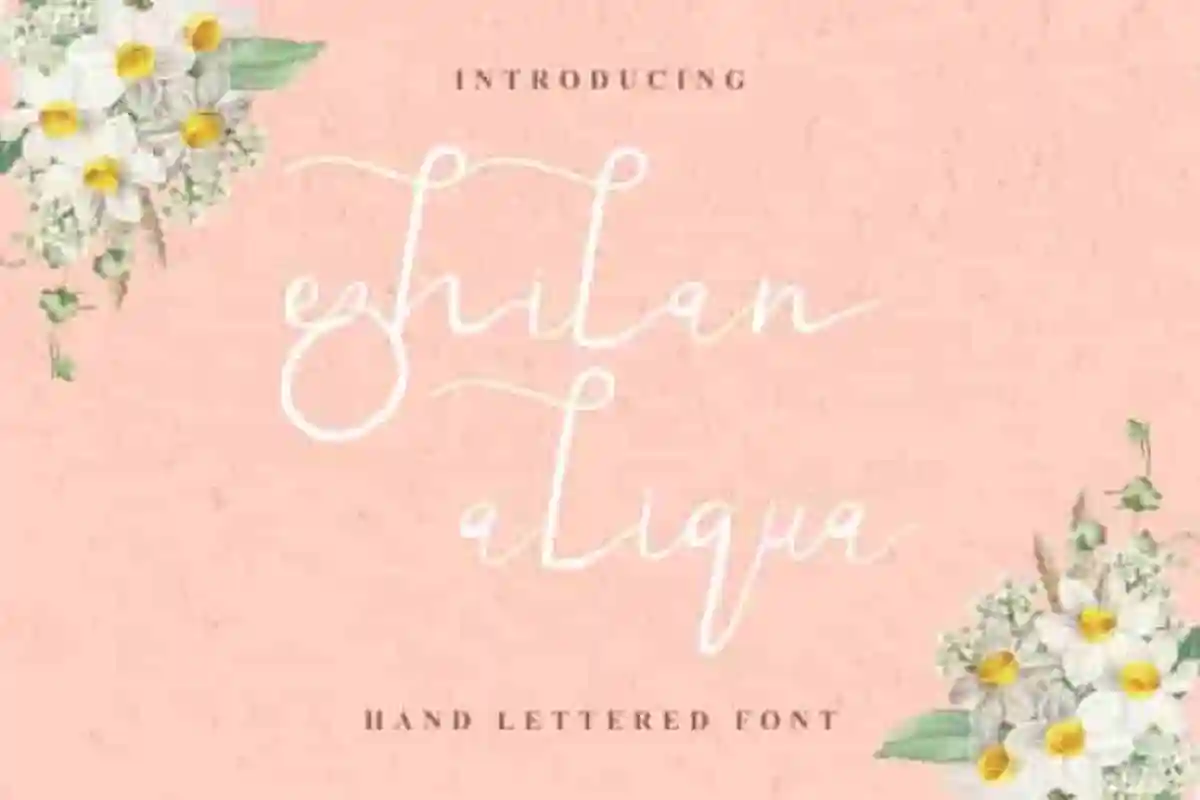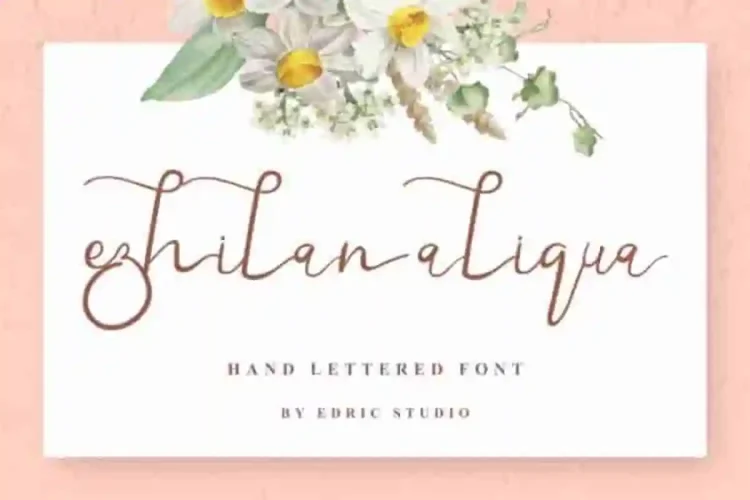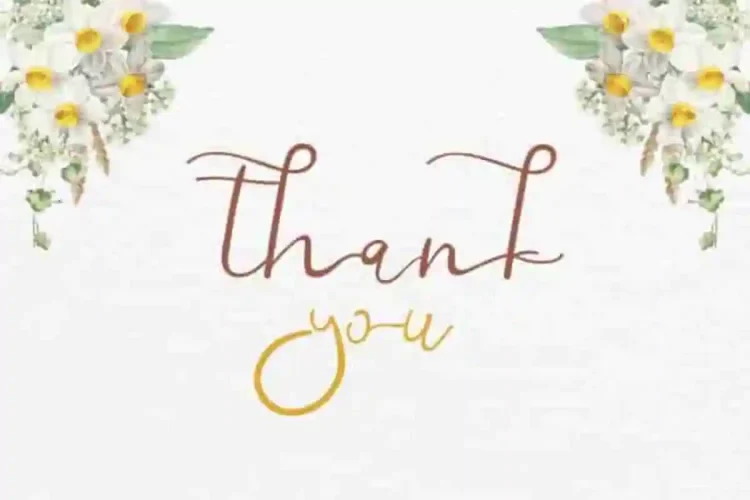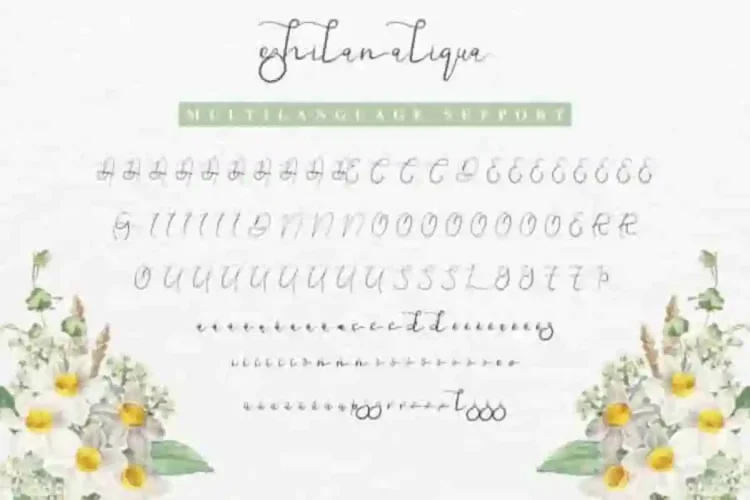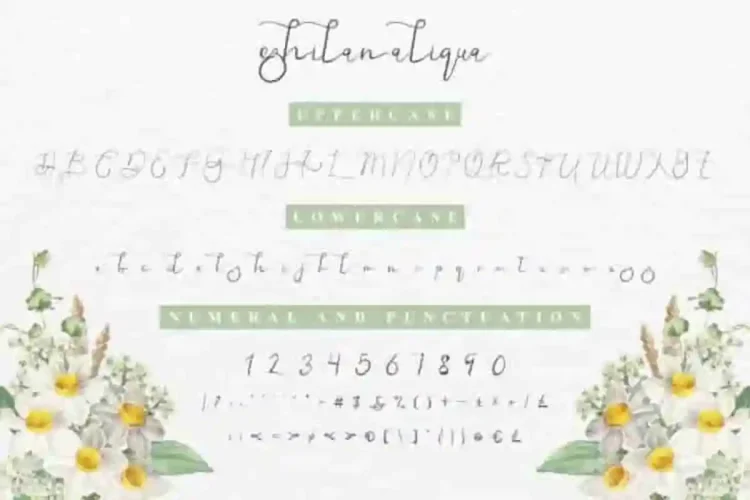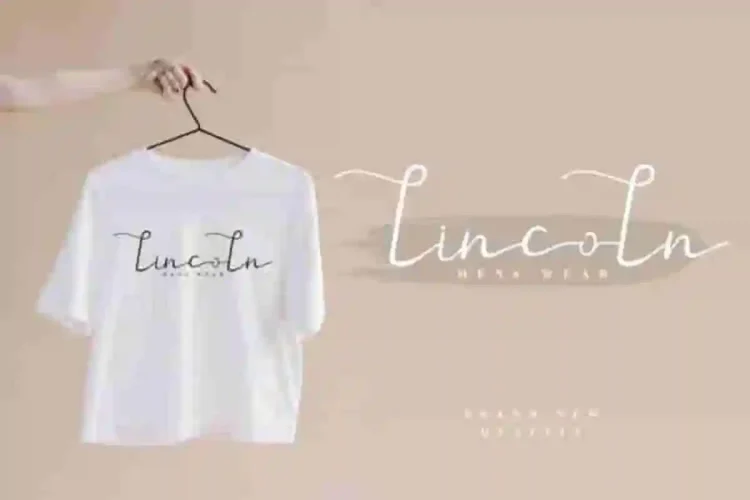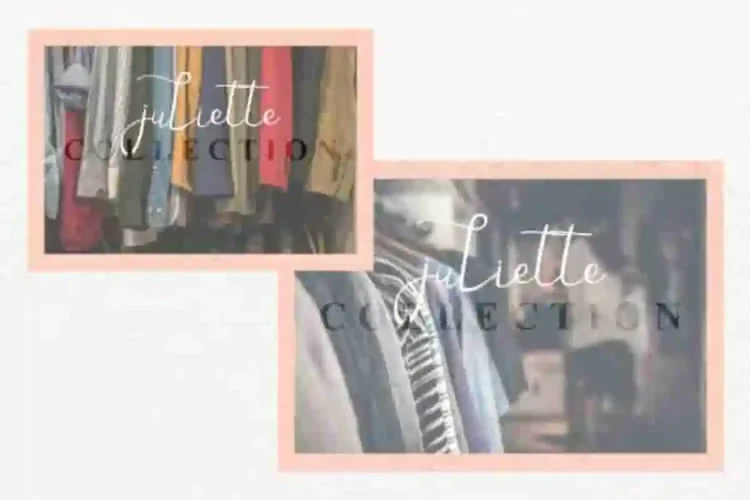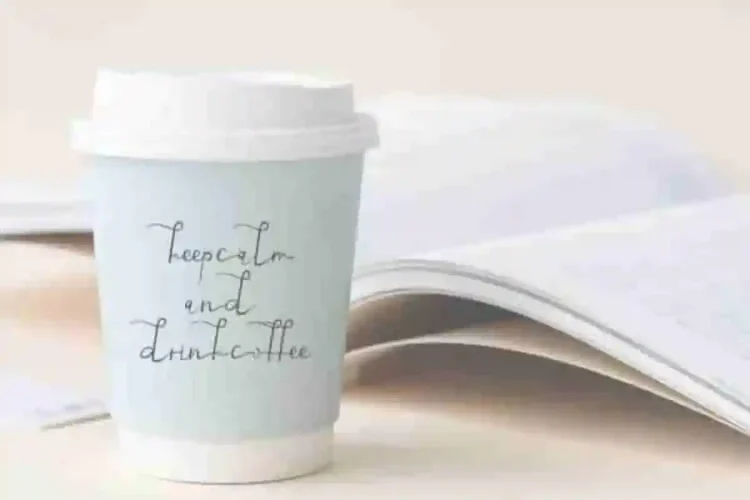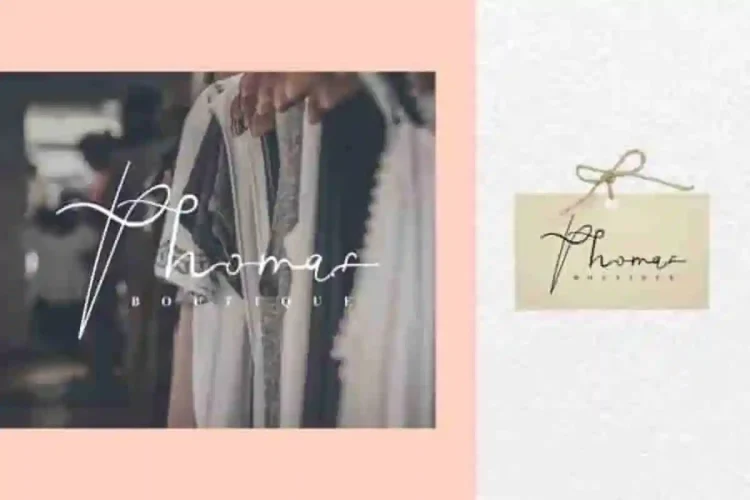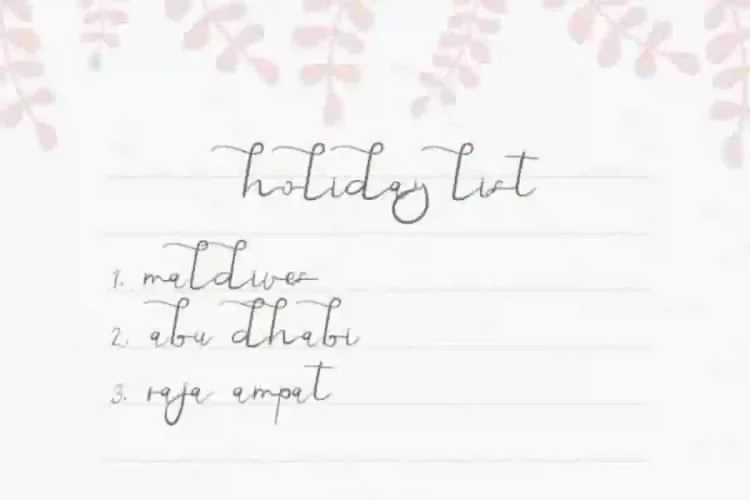
Ezhilan Aliqua Calligraphy Font
Edric Studio introducing to you : Ezhilan Aliqua Calligraphy Font
Introducing Ezhilan Aliqua, a beautiful calligraphy script font crafted with passion by our talented typeface designers, Saila and Suci, in Bandung and Garut, Indonesia.
With its stunning glyph set and natural handwritten flow, Ezhilan Aliqua is ideal for wedding invitations, branding logos, event stationery, social media posts, greeting cards, and more. This font will suits many projects categories : Logo type, flyer, stationery, business card, signage, flyer, brochure etc.  With your creativity, there’s no limit using with this font.
Ezhilan Aliqua Calligraphy Font will be great for many business categories : wedding, events, creative company, architect, interior designer, musician, florist, garden and lawn, advertising, makeup artist, composer, etc